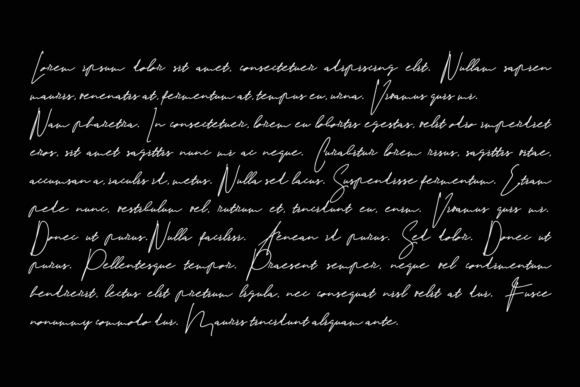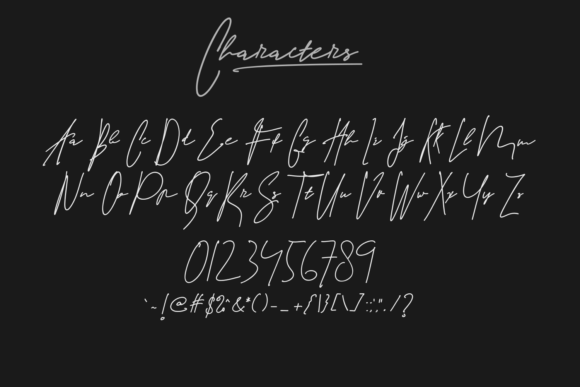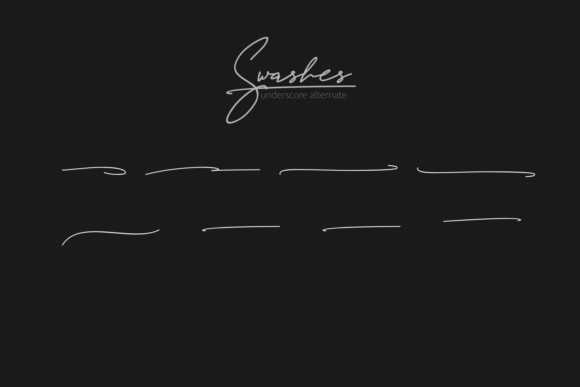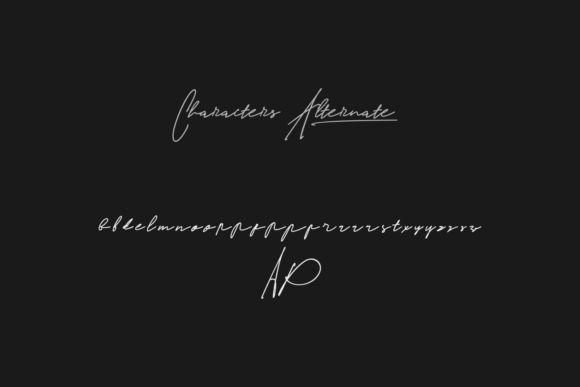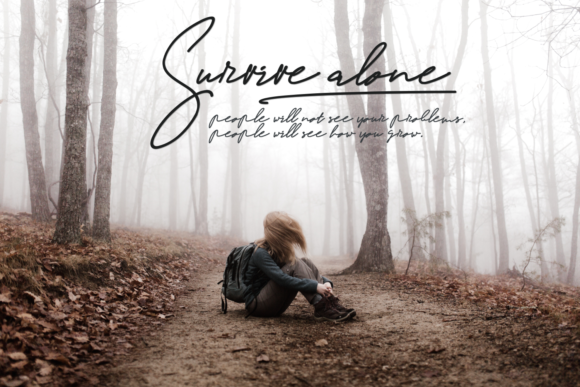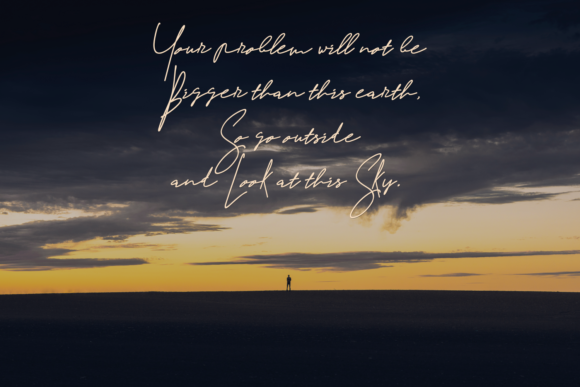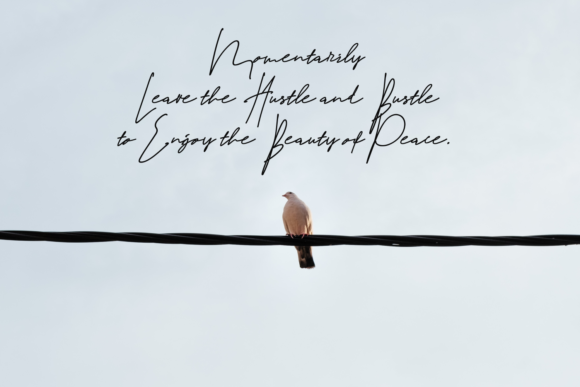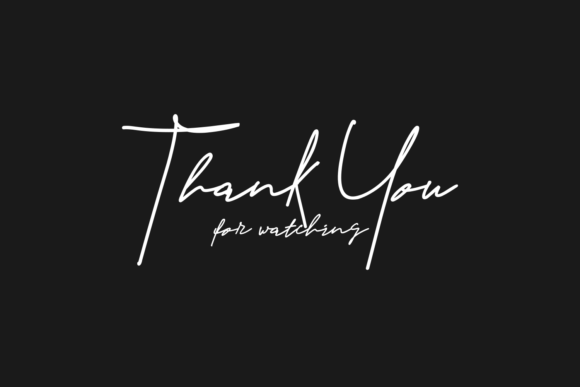
HomeScript FontsStrakle Font Script Fonts Strakle Font FacebookXPinterestWhatsApp Strakle Font Poster 2 Strakle Font Poster 3 Strakle Font Poster 4 Strakle Font Poster 5 Strakle Font Poster 6 Strakle Font Poster 7 Strakle Font Poster 8 Strakle Font Poster 9 About Strakle Font Strakle is a friendly signature font. It will add a romantic touch to any crafting project. DOWNLOAD ON CREATIVE FABRICAThis font is sold and delivered by Creative Fabrica. Font Canyon may earn a commission if you buy through this link. People also explored Reliquaire AOE Sweet Christmas Font Grunge Aztecs Font Ameliatina Font Cheryl Masetta Font Herey Duo Font Eastlake Hello Christmas Font Georgina Signature Font 392 0 TagsStrakle Font Previous articleCentral Point FontNext articleBlauer Font LEAVE A REPLY Cancel reply Comment: Please enter your comment! Name:* Please enter your name here Email:* You have entered an incorrect email address! Please enter your email address here Website: Save my name, email, and website in this browser for the next time I comment. Personal Use Free Puisi Adinda Personal Use Free Read more about this font Angista Script Personal Use Free Read more about this font The Relapse Personal Use Free Read more about this font Deco Neue Wilde Personal Use Free Read more about this font BLOG Fonts That Capture the Spirit of New York City New York City is more than just a place—it’s an experience, a rhythm, a visual language... Best Fonts for YouTube Videos: Make Your Thumbnails Stand Out The 10 Best Handwriting Fonts to Add Personality to Your Designs Top 10 Handwritten Fonts That Elevate Your Designs